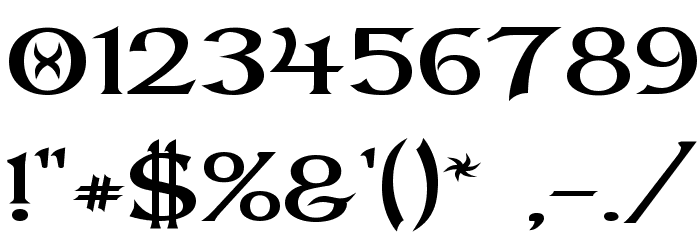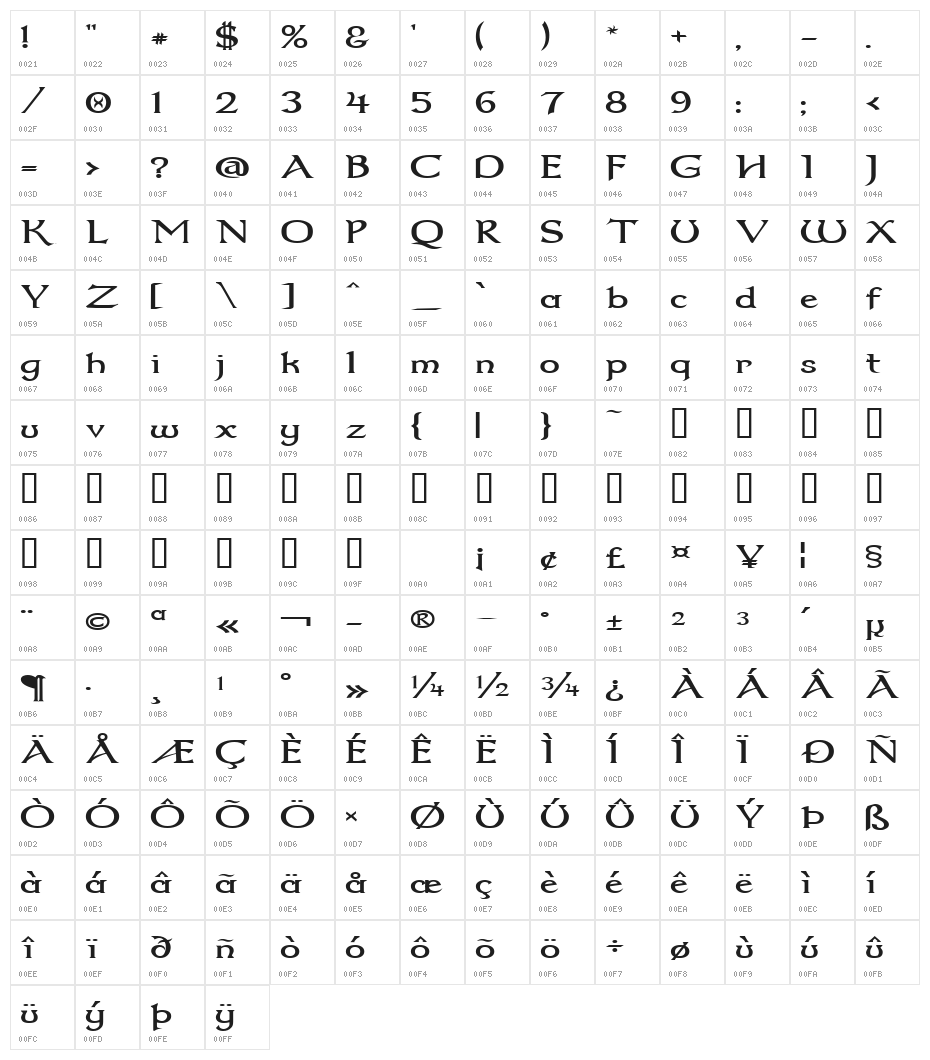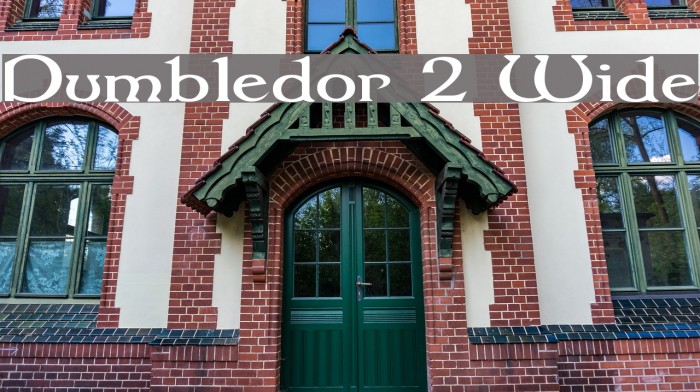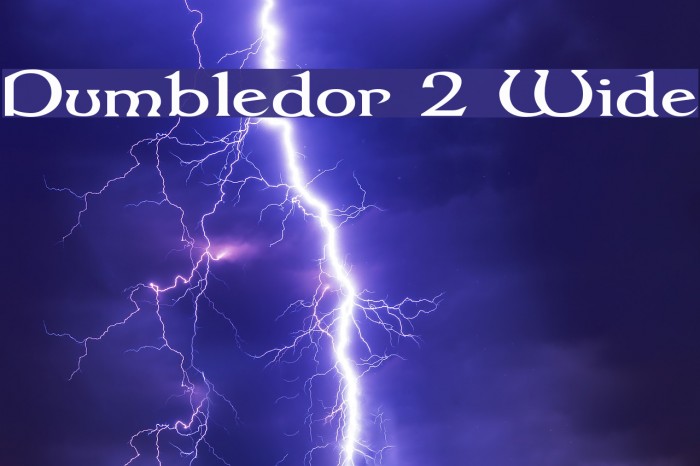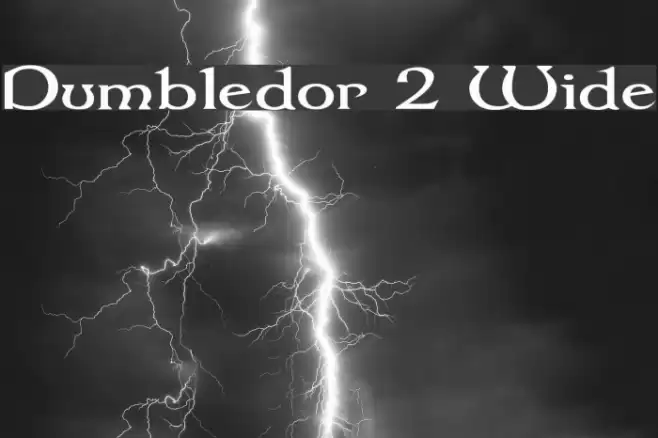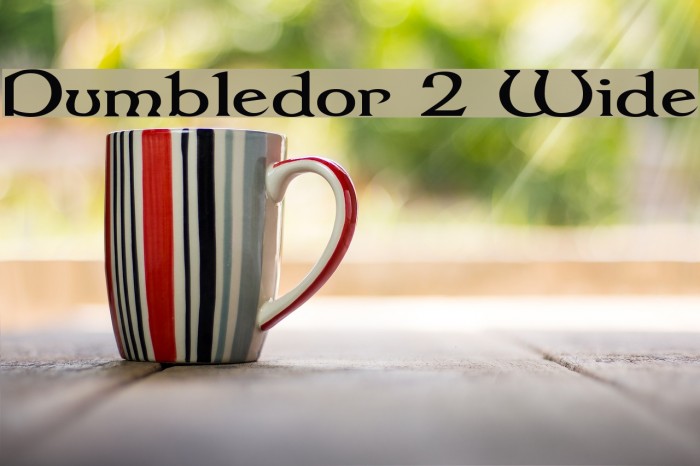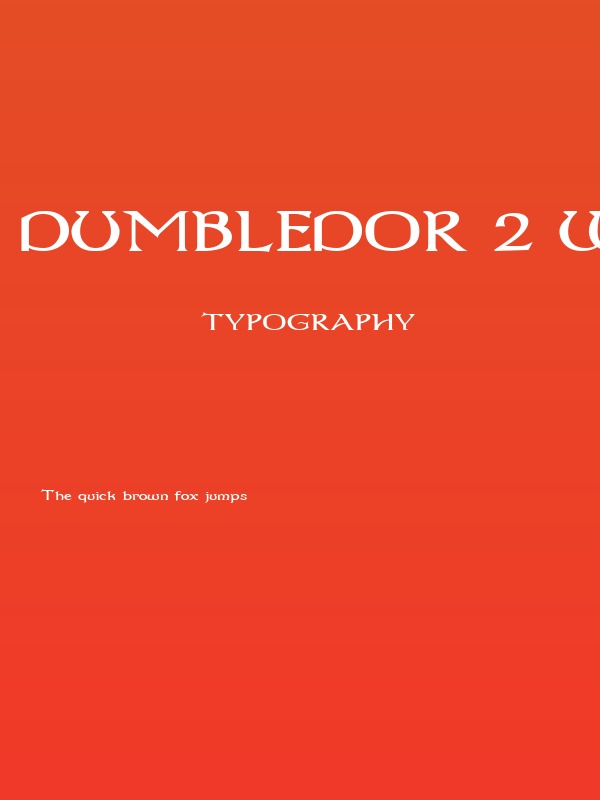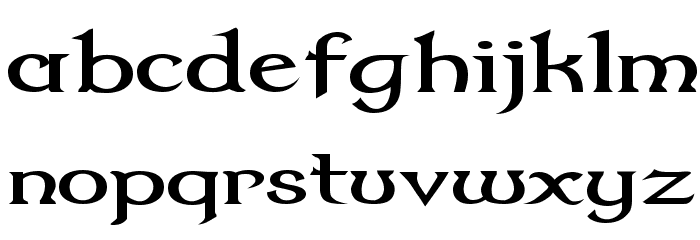
Dumbledor 2 Wide Font
Dumbledor 2 Wide Description
This font exhibits a distinctive and bold style with sharp, angular serifs and a medieval flair. The uppercase letters are characterized by their pointed edges and unique curves, giving them a dramatic and striking appearance. The lowercase letters maintain a consistent style with a slightly more subdued elegance, featuring similar angular serifs and a balanced weight. The numerals are bold and clear, with a consistent width that matches the overall aesthetic of the font. Special characters are designed to complement the letterforms, maintaining the same sharp and angular style. This font is perfect for projects that require a touch of fantasy or historical elegance, making it suitable for book covers, posters, and themed branding.